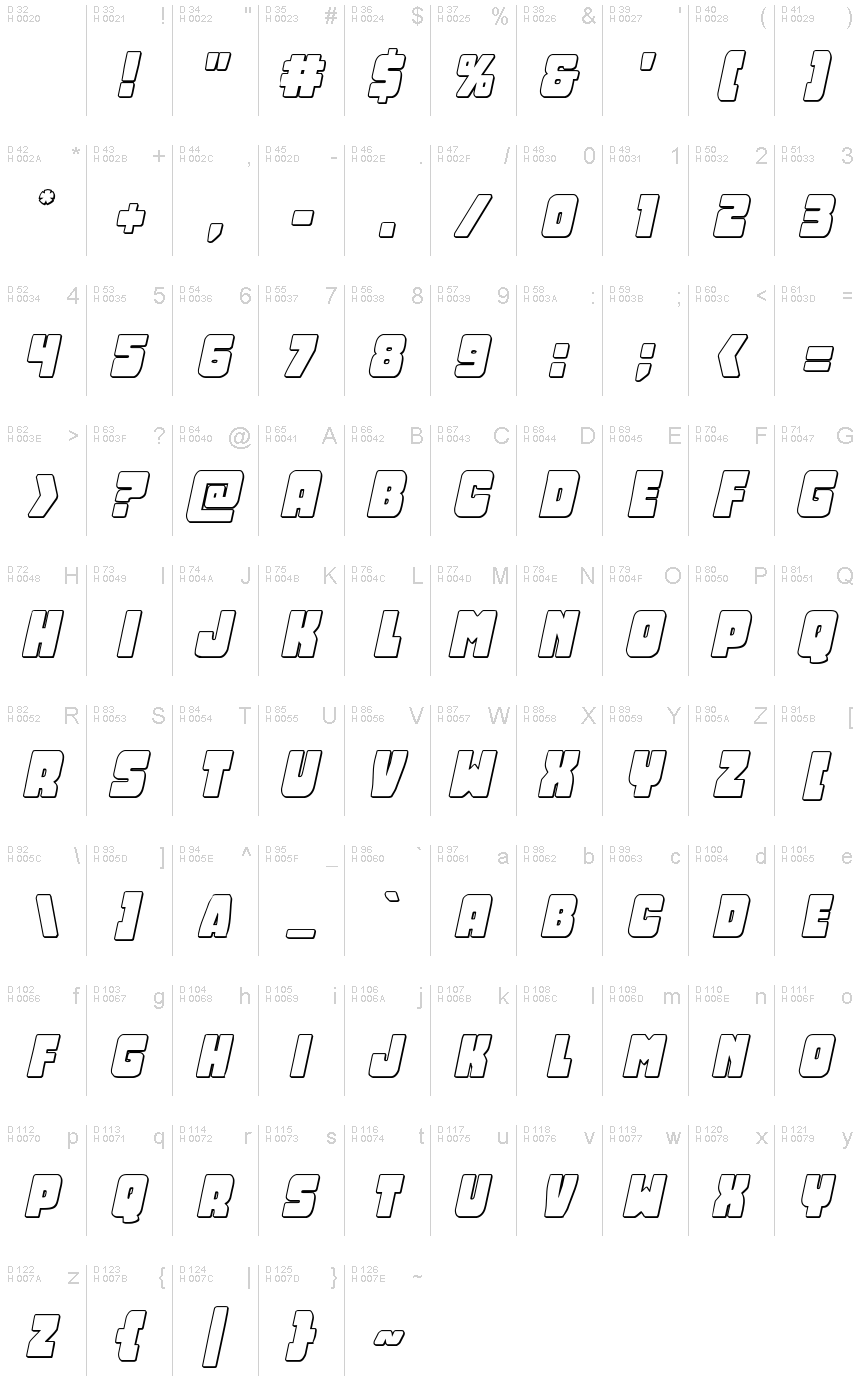
Opus Mundi 3D Italic
Opus Mundi is a captivating 3D italic font that exudes a sense of grandeur and sophistication. Its bold, condensed design and dramatic three-dimensional effect create a striking visual impact, making it an excellent choice for headers, titles, and other display purposes.
The font's intricate, interconnected letterforms evoke a sense of movement and energy, while the italic styling adds a touch of elegance and dynamism. Opus Mundi's versatility allows it to shine in a variety of design contexts, from editorial layouts and packaging to branding and advertising.
Its unique aesthetic makes it a standout option for designers seeking to capture attention and convey a sense of grandeur and timelessness.